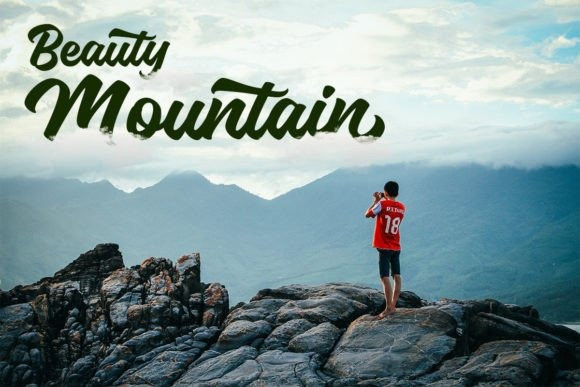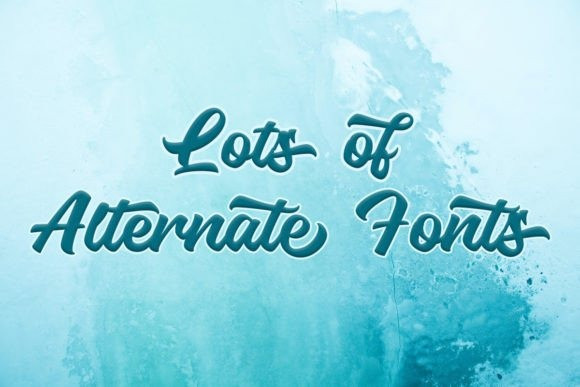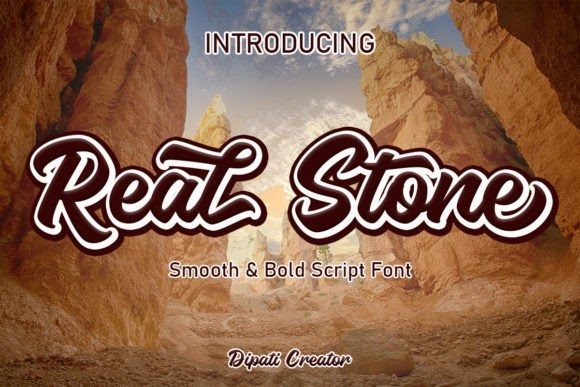
Real Stone Font
Real Stone Font is a cool, elegant and unique script font. Fall for its ravishing style and use it to create gorgeous wedding invitations, beautiful stationary art, eye-catching social media posts, and much more! This font is PUA encoded, which means you can access all of the glyphs and swashes with ease!